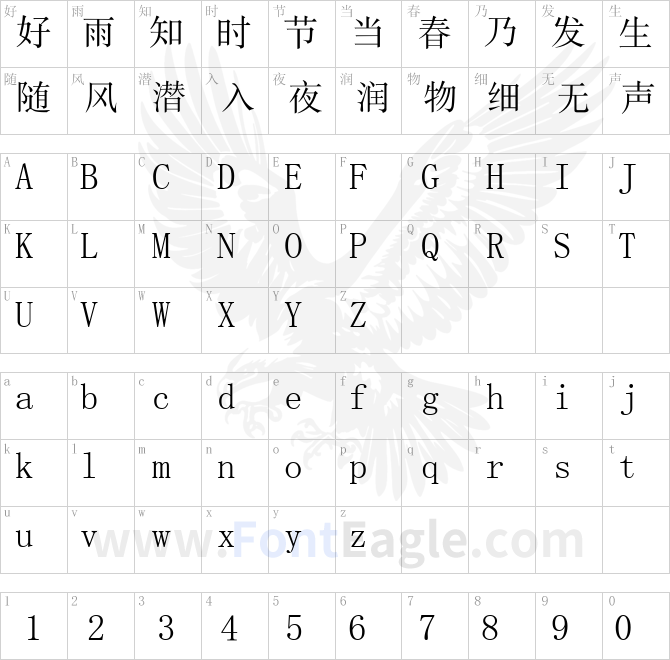
- Font name:MS Song
MS-Song is a great font, widely used in graphic design, single-page menu design, poster design and other fields, and is deeply loved by designers.MS-Song download.